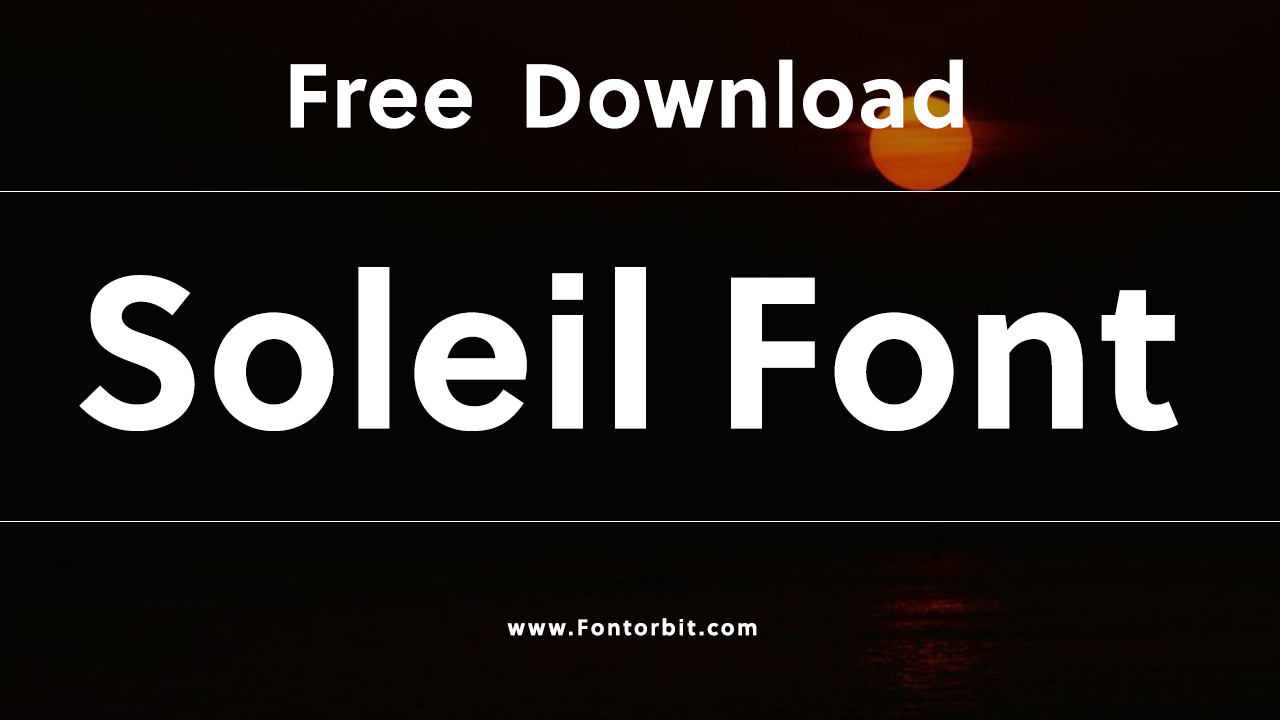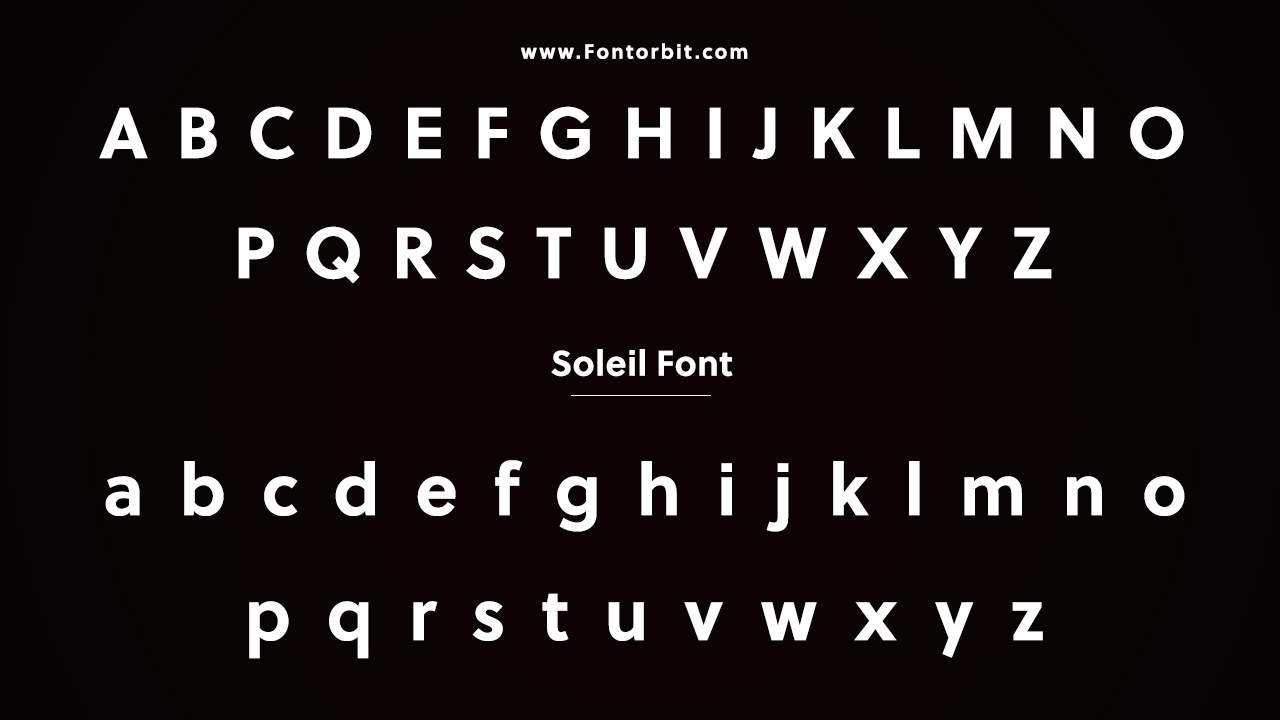
The Soleil font is a geometric sans-serif typeface designed by Wolfgang Homola. First released in 2011, this modern font emphasizes clean, geometric shapes while integrating subtle optical corrections that soften its appearance.
Its versatility makes it suitable for various applications, from branding to wayfinding. Soleil’s family offers a wide range of weights, which makes it a great alternative to other overused geometric fonts.
Soleil works well in a range of design environments. Due to its clarity and balanced proportions, it’s especially suited for:
- Headings
- Banners
- Websites
Soleil is a beautifully constructed geometric sans-serif that offers both modern aesthetics and functional versatility. Its wide array of styles ensures it can be adapted to various design contexts, whether for print or digital media. Soleil font is an excellent choice if you’re looking for a contemporary and professional typeface that stands out without overwhelming.
1. Can Soleil Be Used In Digital Interfaces?
Yes, it’s ideal for web and mobile interfaces due to its clarity and legibility.
3. What Are The Best Uses Of Soleil?
Branding, signage, wayfinding, and editorial design are the best contexts.
4. Does Soleil Support Multiple Languages?
Yes, it supports Latin-based languages, making it suitable for a global audience.
5. What Are Good Alternatives To Soleil?
Futura, Avenir, Proxima Nova, Montserrat, and Gotham are great alternatives.
6. Is Soleil Legible For Large Text Uses?
Yes, Soleil’s clean geometric forms make it highly legible even in large sizes.